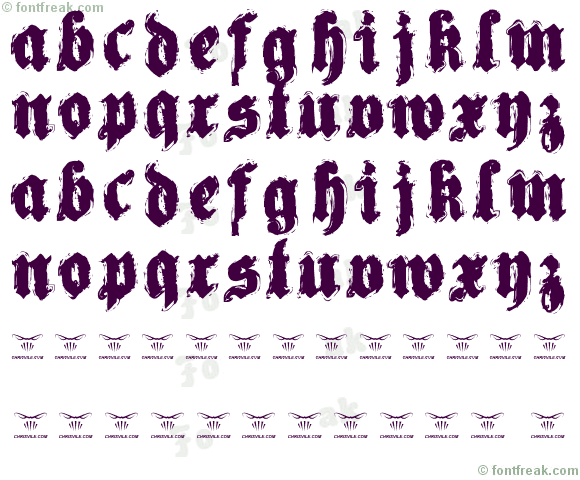
Reaching for Heaven
About Reaching for Heaven
Reaching for Heaven, created by Chris Vile, is a striking display font that embodies a unique blend of decorative and handwritten styles. This freeware typeface features a bold stroke weight with a high contrast that adds a dramatic flair to any project. The letters are characterized by their intricate detailing, which gives them an ethereal quality, making them ideal for designs that aim to evoke a sense of wonder and aspiration. The spacing between characters is thoughtfully crafted, ensuring clarity while enhancing the overall aesthetic appeal.
This font is particularly well-suited for a variety of creative applications. Wedding invitations can benefit from its romantic and whimsical touch, instantly elevating the design to match the significance of the occasion. Movie posters, especially those in the fantasy or adventure genres, can use Reaching for Heaven to convey themes of exploration and the supernatural. Restaurant menus aiming for a unique branding experience will find that this font adds an artistic flair, making the dining experience feel more curated. Additionally, content creators looking to make impactful social media graphics or blog headers will appreciate its eye-catching qualities.
Targeting graphic designers, small business owners, and content creators, Reaching for Heaven provides a versatile option for those seeking to make a memorable impression. Its distinctive style makes it stand out in a crowded marketplace, allowing users to express creativity while maintaining readability. For anyone in search of a font that combines elegance with a touch of the extraordinary, the Reaching for Heaven font free download offers an inviting opportunity to transform any project into a work of art. This font not only captures attention but also inspires a sense of dreams and aspirations, making it a remarkable choice for various design needs.